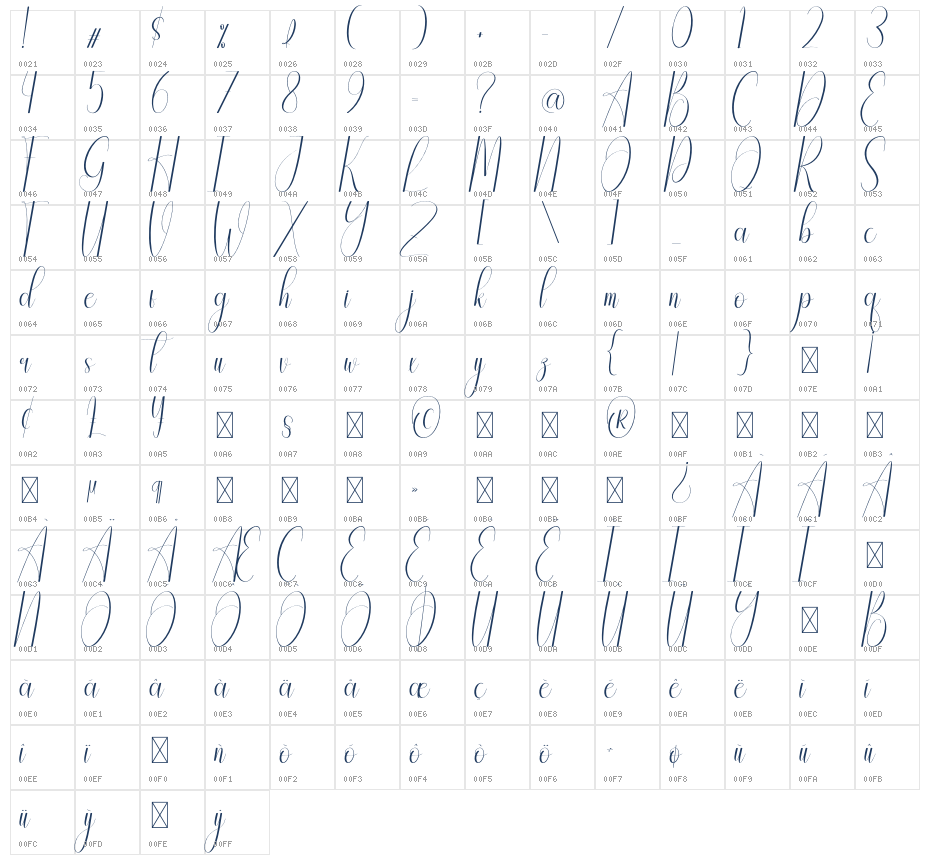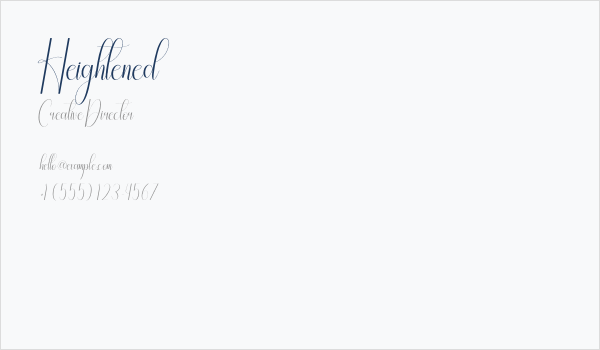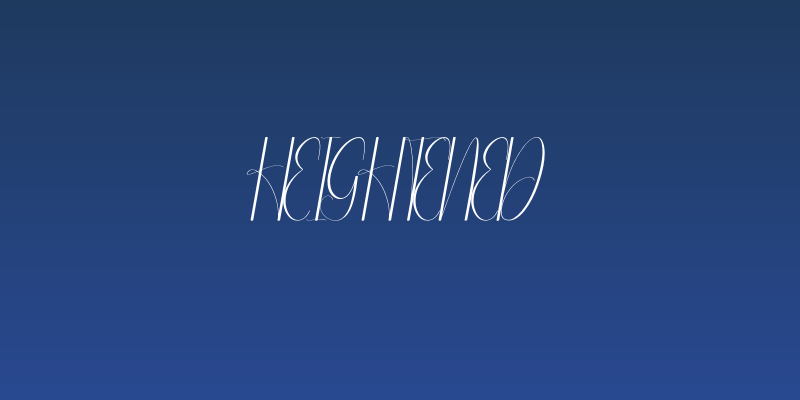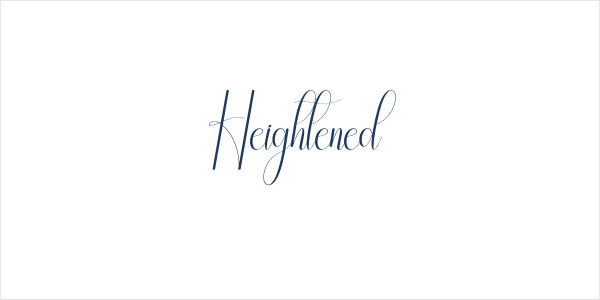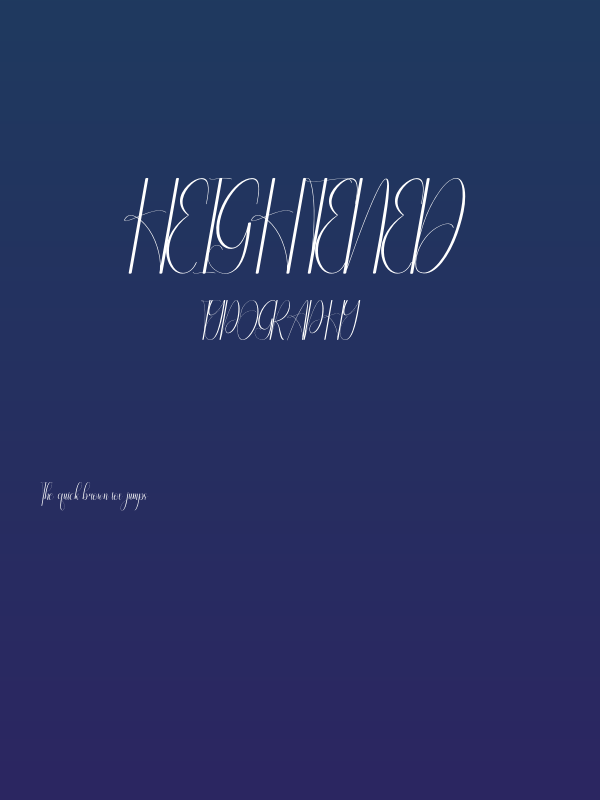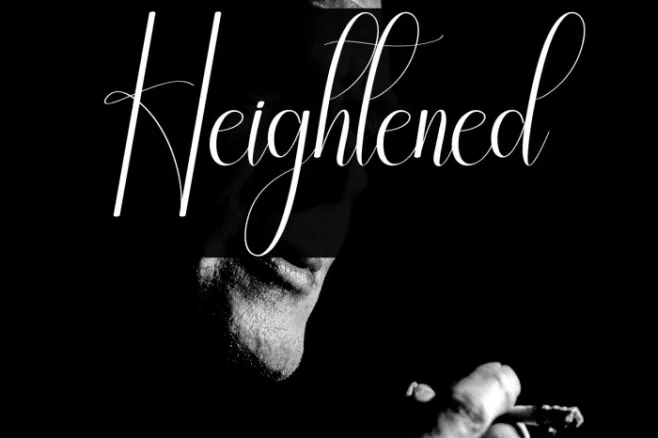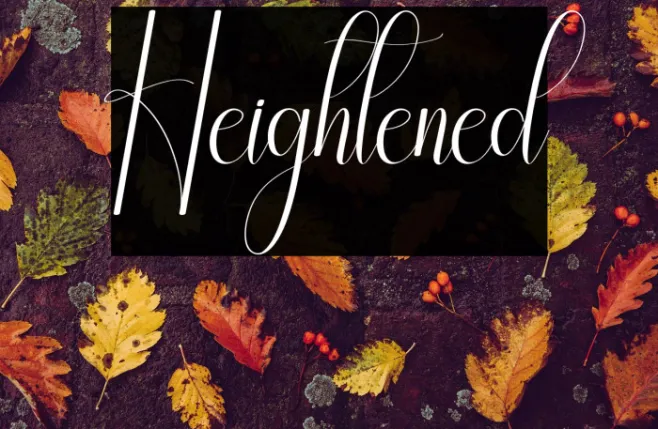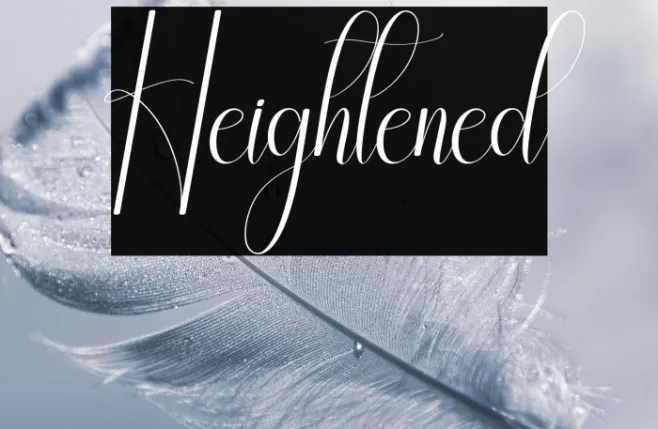
Heightened Font
Heightened Description
A highly decorative, cursive script font with elegant, flowing lines and intricate swashes, designed to evoke a sense of sophistication and artistry.
| Overall Style | Elegant, Decorative, Artistic |
| Use Case | Headlines, Invitations, Logos, Decorative Text |